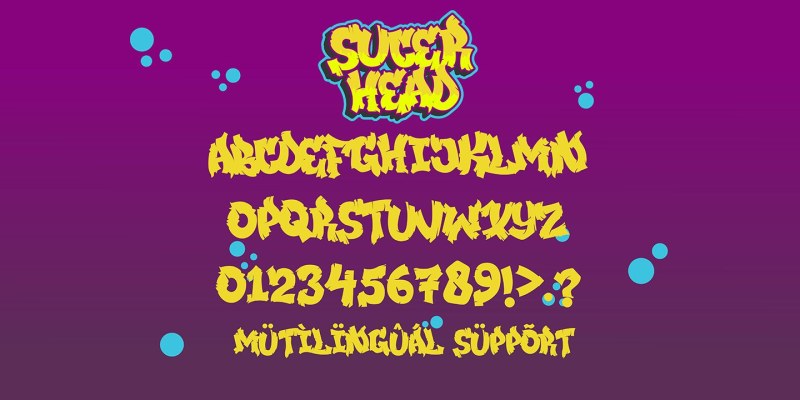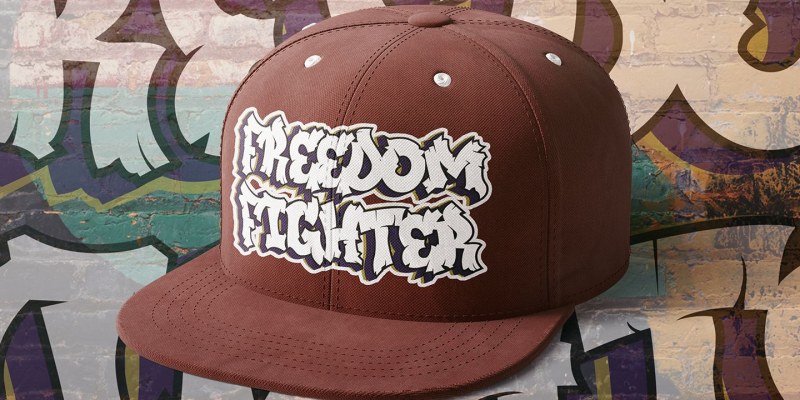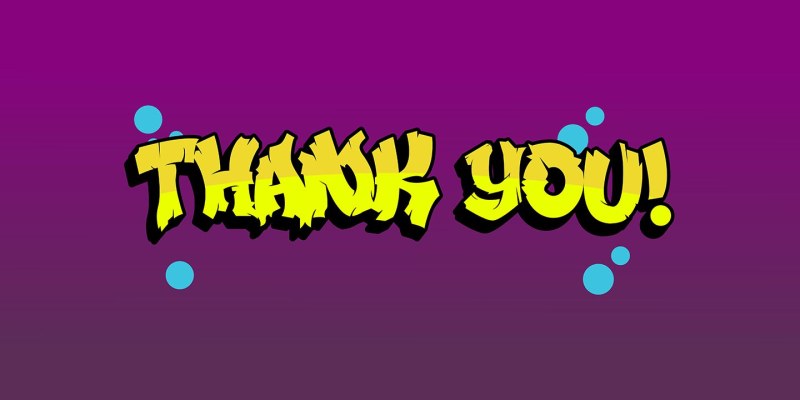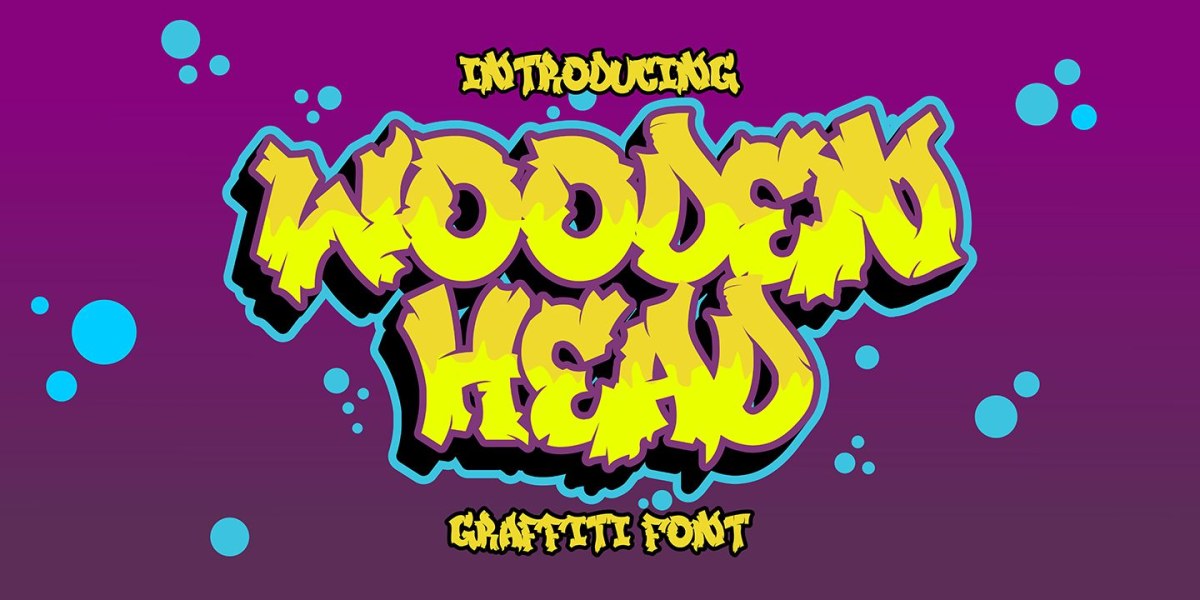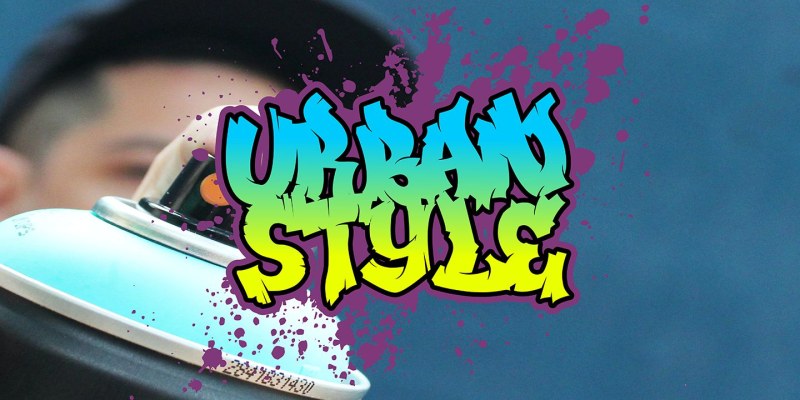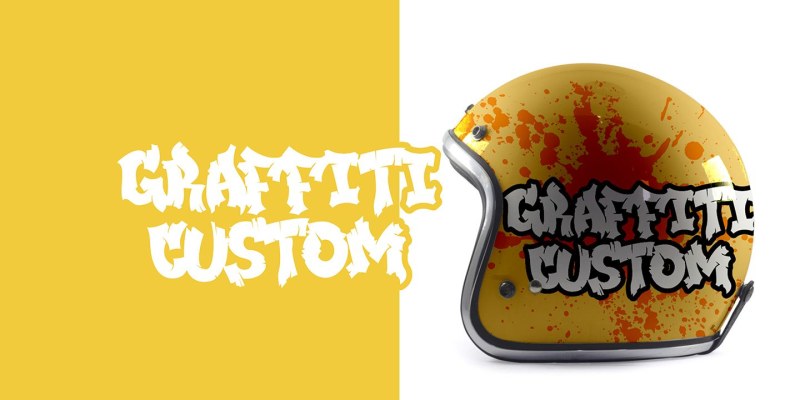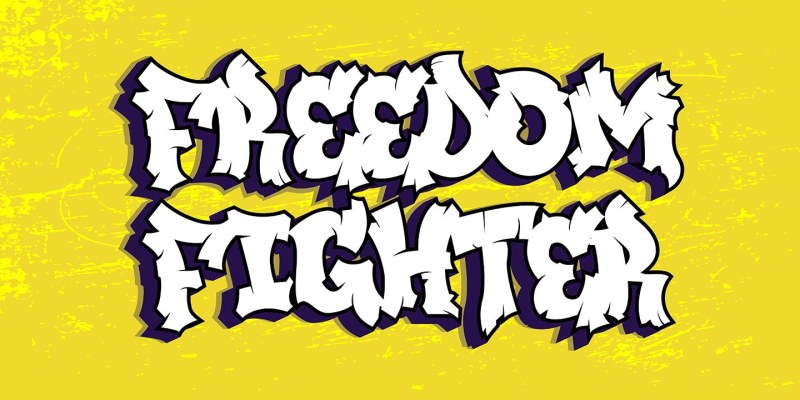
Wooden Head Font
Wooden Head is a unique display font with a graffiti-like appearance. Use this font for any crafting project, apparel design, logotype, advertising, wall decoration, and…
Wooden Head is a unique display font with a graffiti-like appearance. Use this font for any crafting project, apparel design, logotype, advertising, wall decoration, and pretty much anything that requires a personalized look. Take your designs to the next level with this stunning font!
Where Wooden Head Font works best
Wooden Head Font is built for size: event posters, hero headlines and billboard-style layouts.
High contrast display type like Wooden Head Font reads instantly in thumbnails and motion graphics.
What is Wooden Head Font good for?